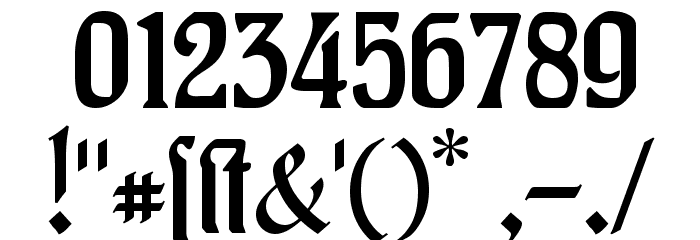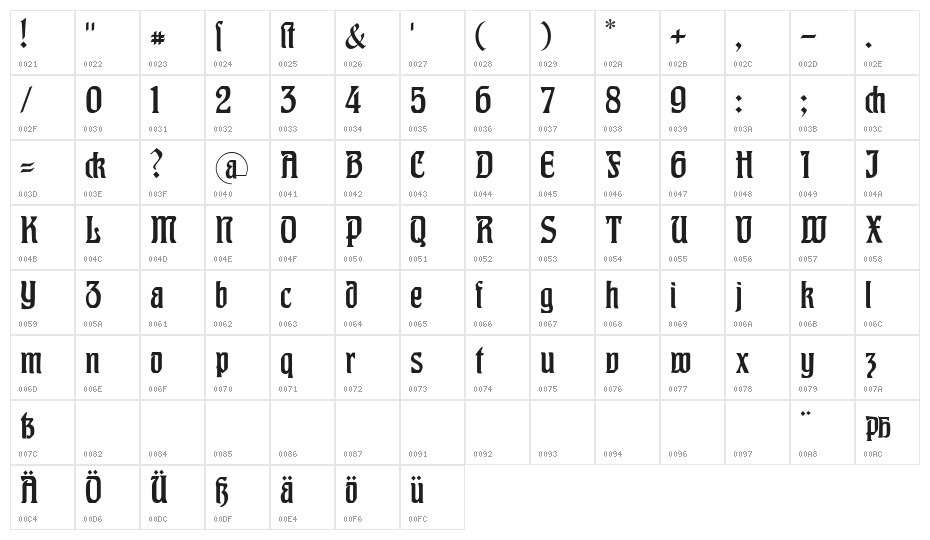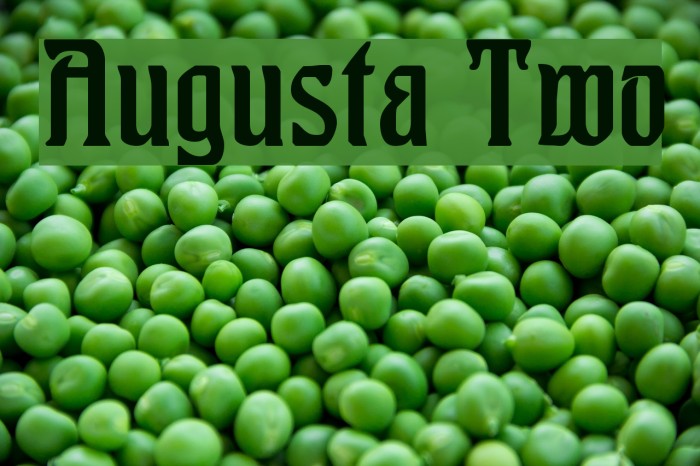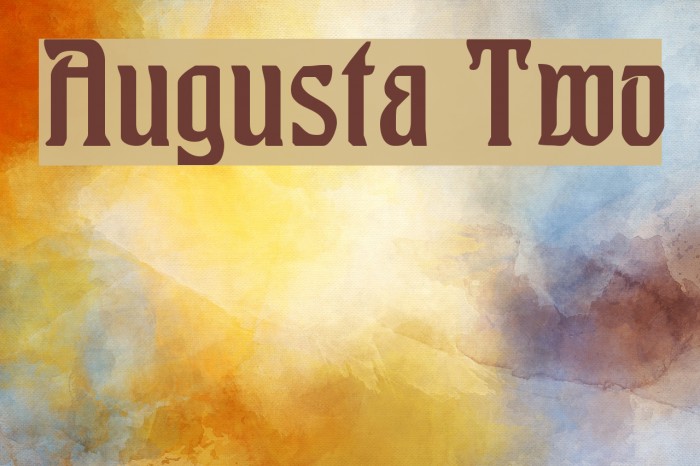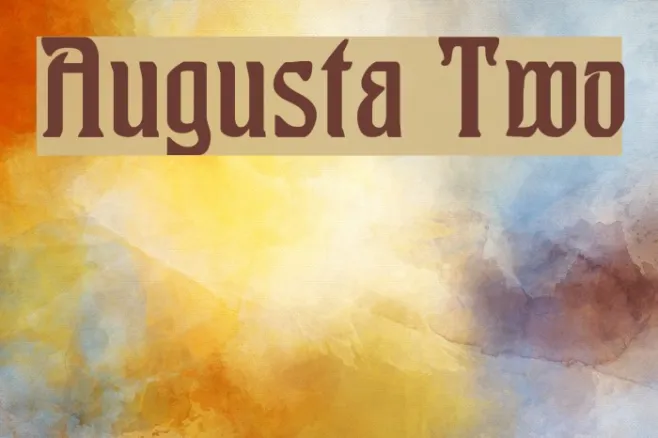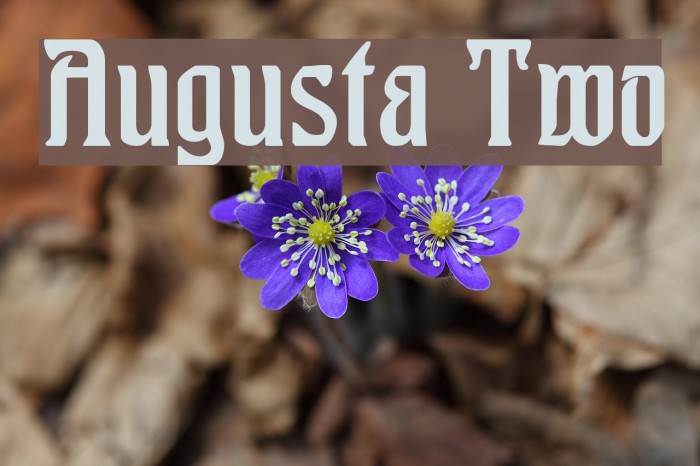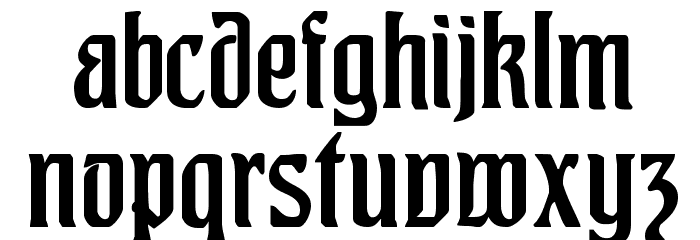
Augusta Two Font
Augusta Two Description
This font features a bold and striking design with a strong blackletter influence. The uppercase letters are characterized by sharp, angular lines and a distinct medieval aesthetic, while the lowercase letters maintain a similar style with slightly softer curves. The numerals are consistent with the overall theme, offering a cohesive look. Special characters are designed to complement the letterforms, maintaining the bold and decorative style. This font is ideal for projects that require a historical or gothic feel, providing a dramatic and impactful visual presence.
| Proposed Projects | Ideal for historical themed designs, gothic posters, book covers, and branding that requires a dramatic flair. |